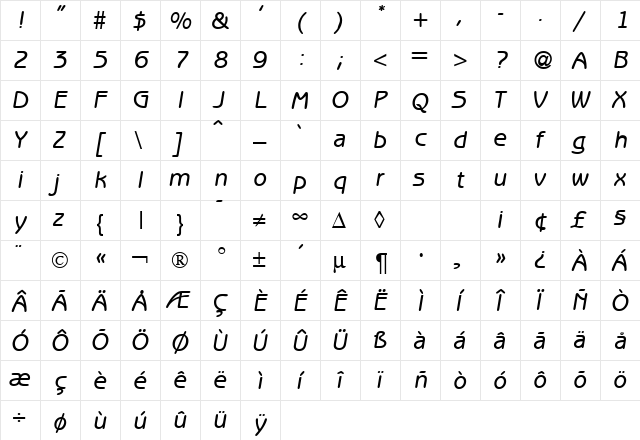
BenjaminSansMedium RegularItalic
Design Context for BenjaminSansMedium Typeface
BenjaminSansMedium offers clean, dependable letterforms without strong stylistic allegiance, making it a practical choice for designers who need flexibility. The dynamic lean of this cut emphasises speed and emphasis in any layout.
Pro Tip: Use BenjaminSansMedium for emphasis, pull quotes, and subheadings where its slanted energy can add rhythm to the layout.